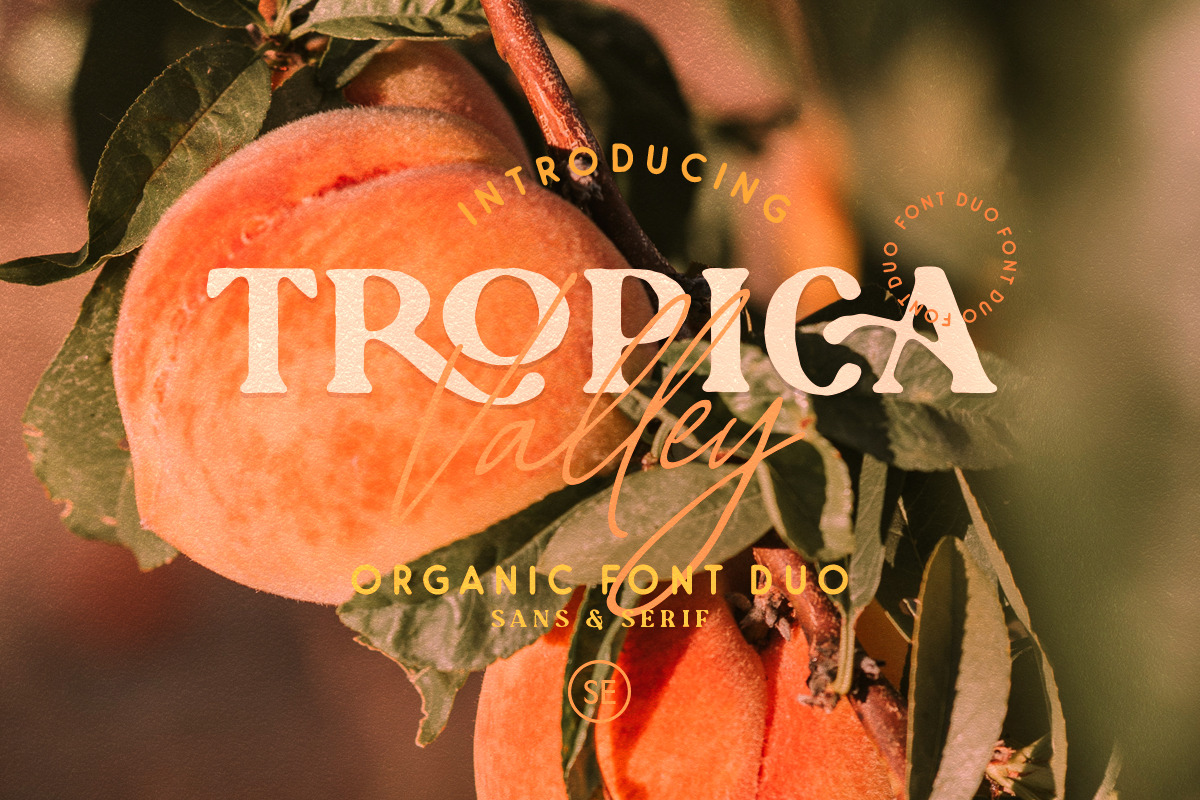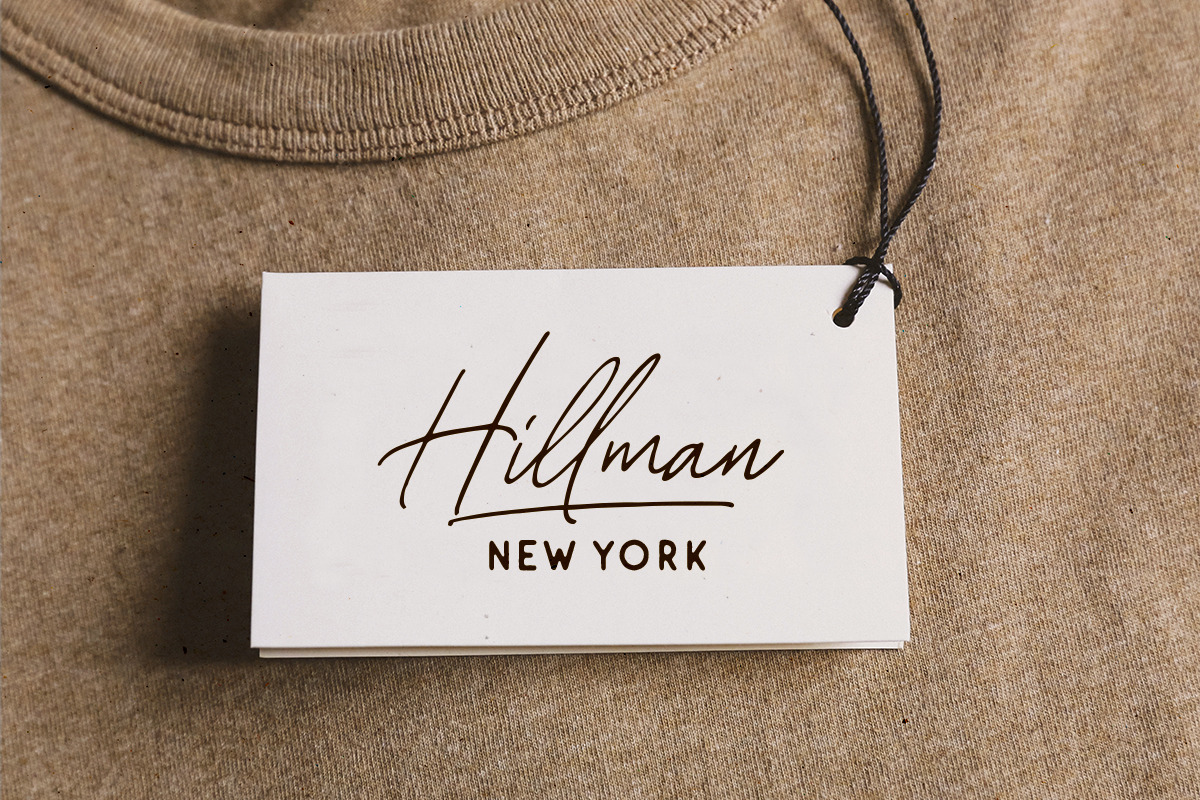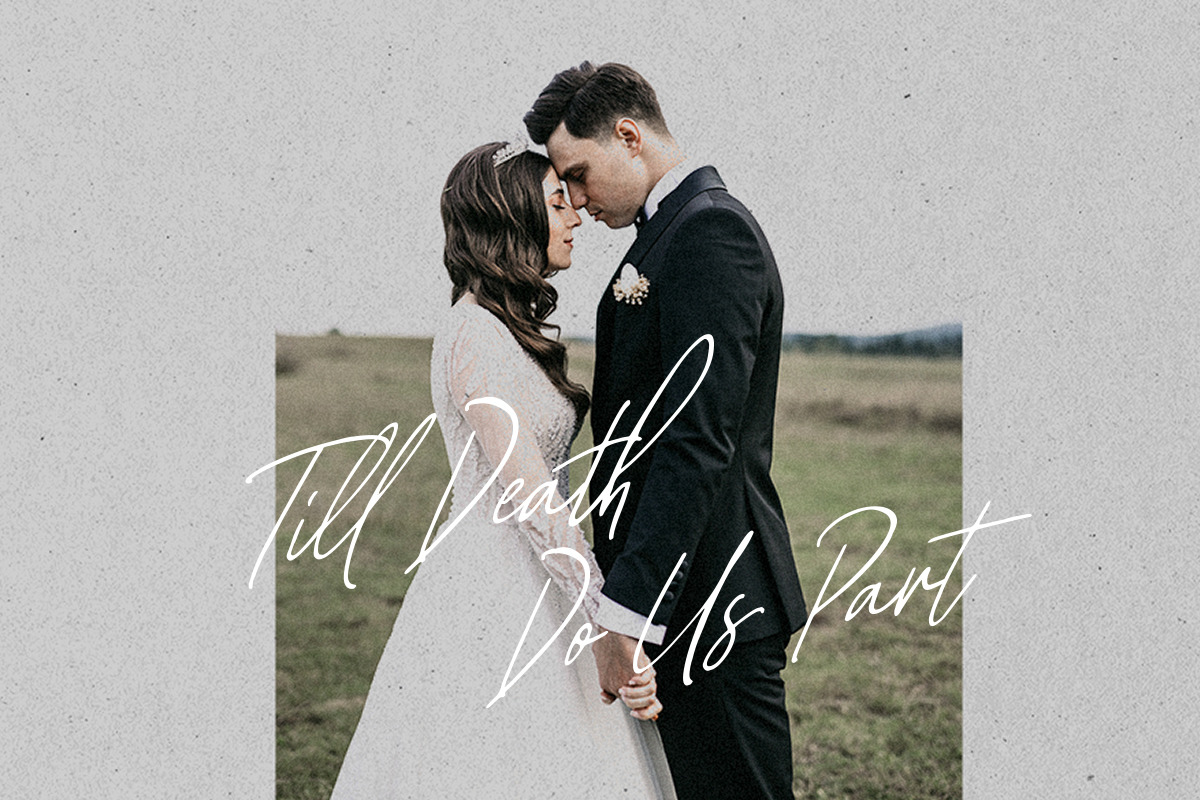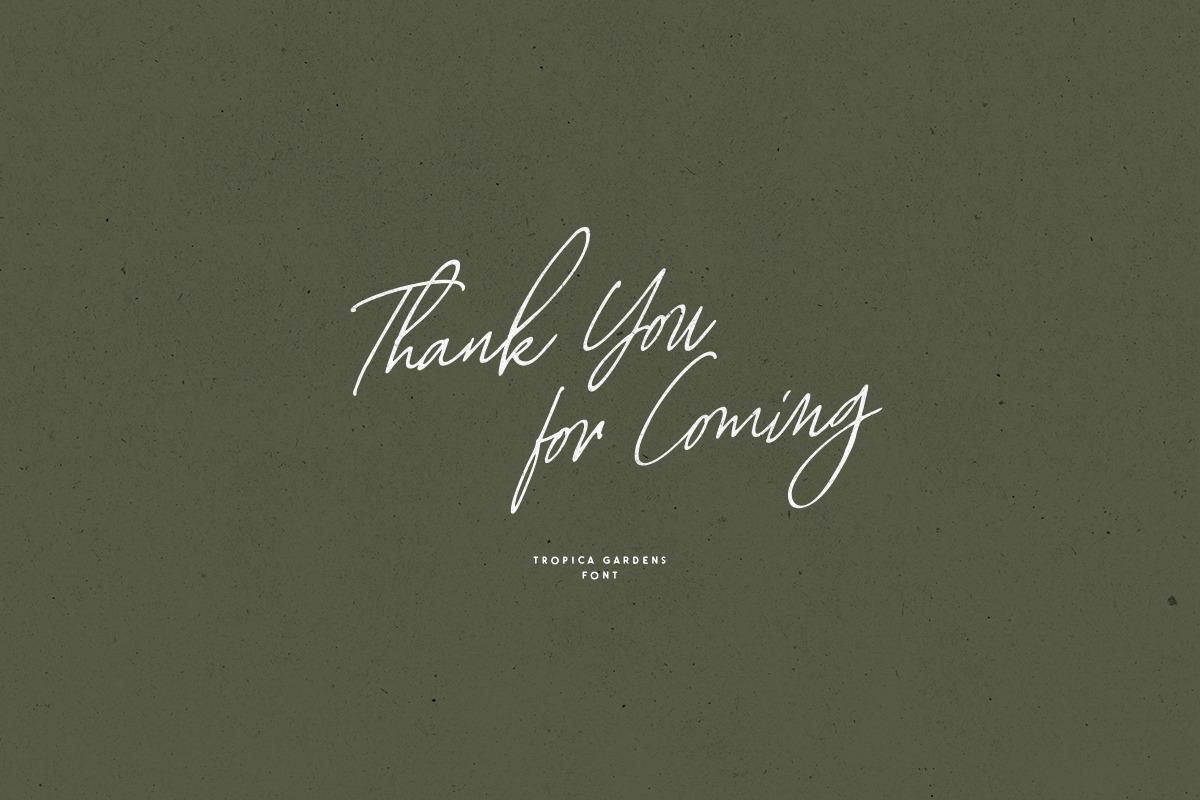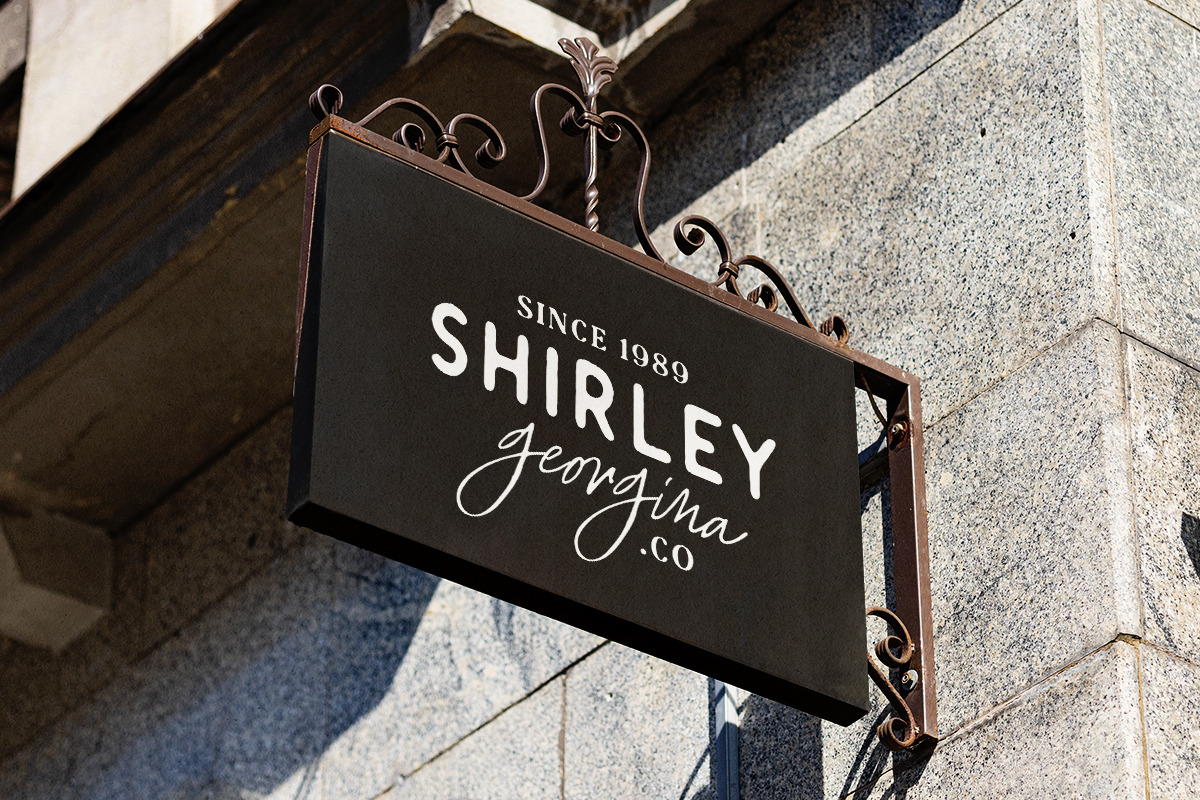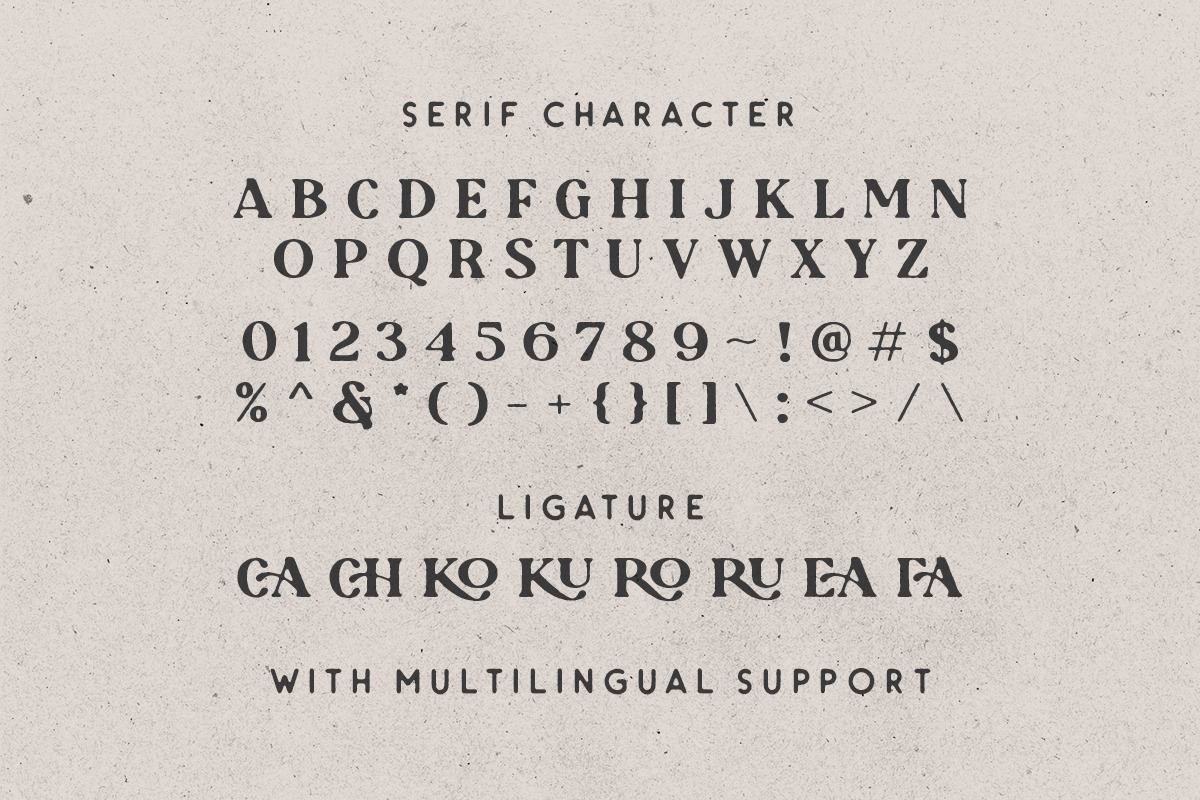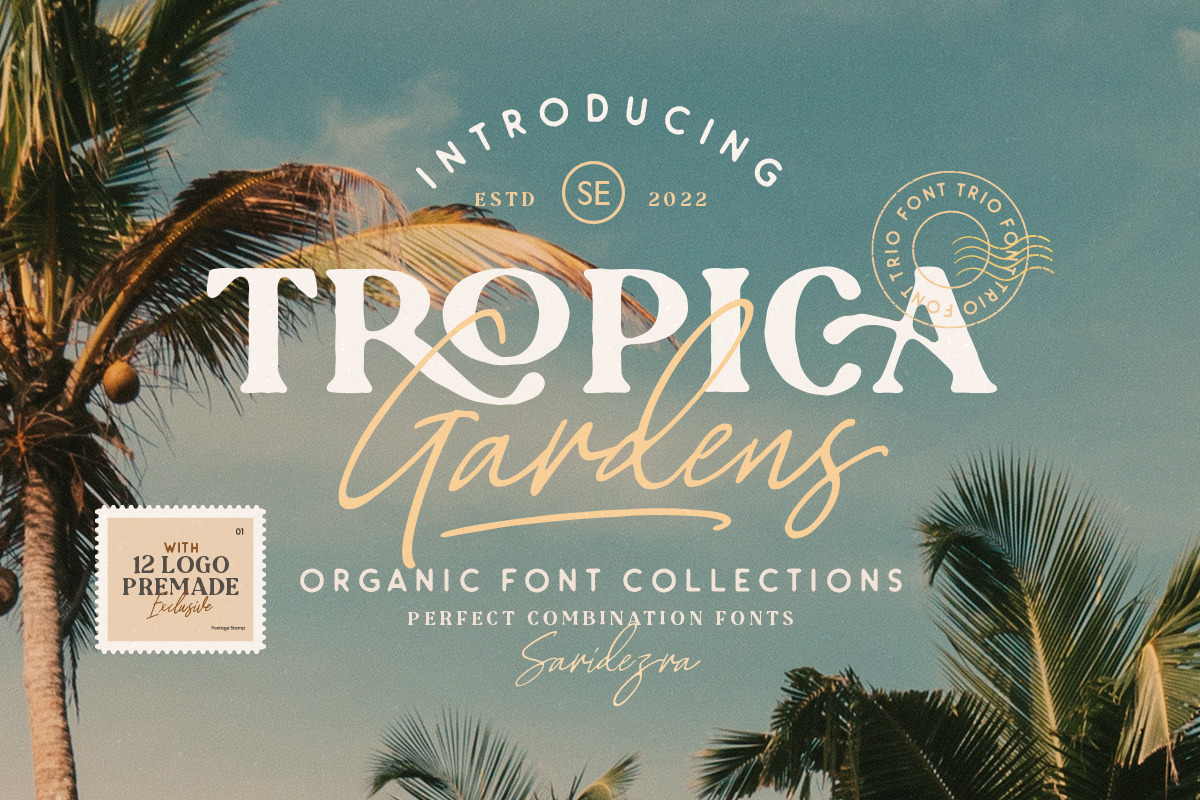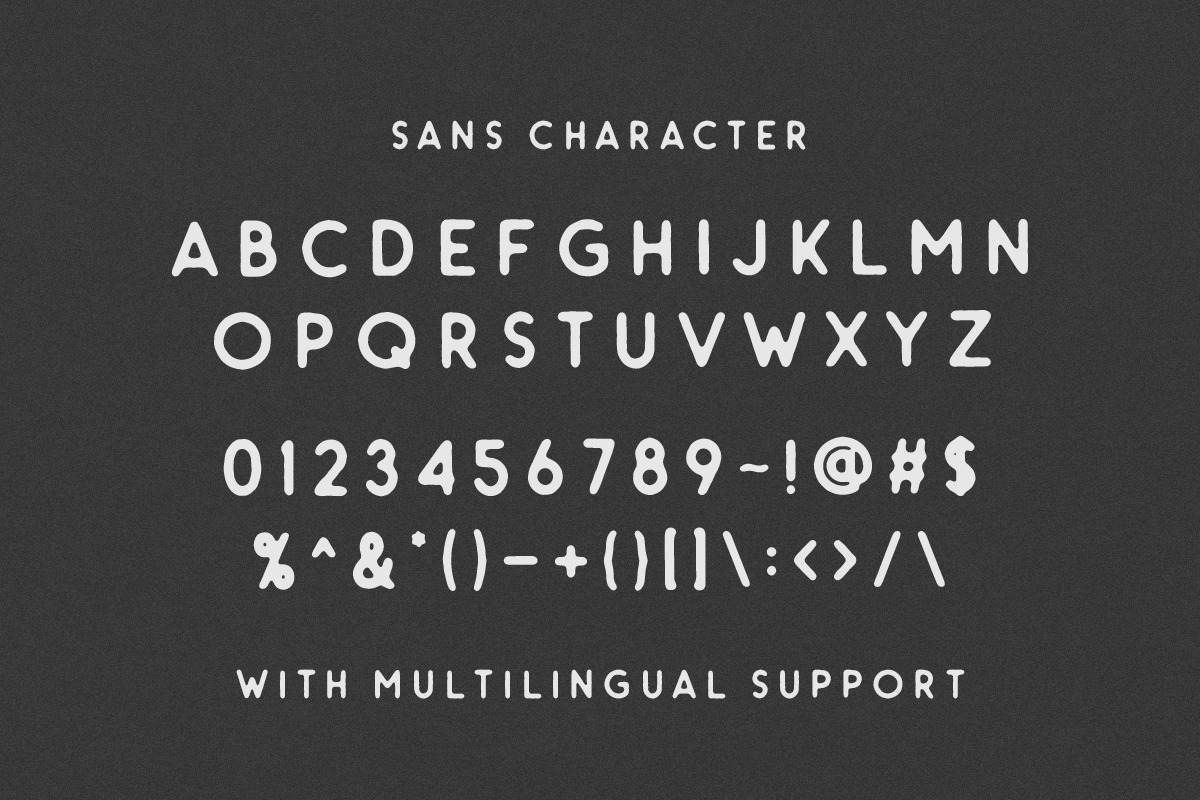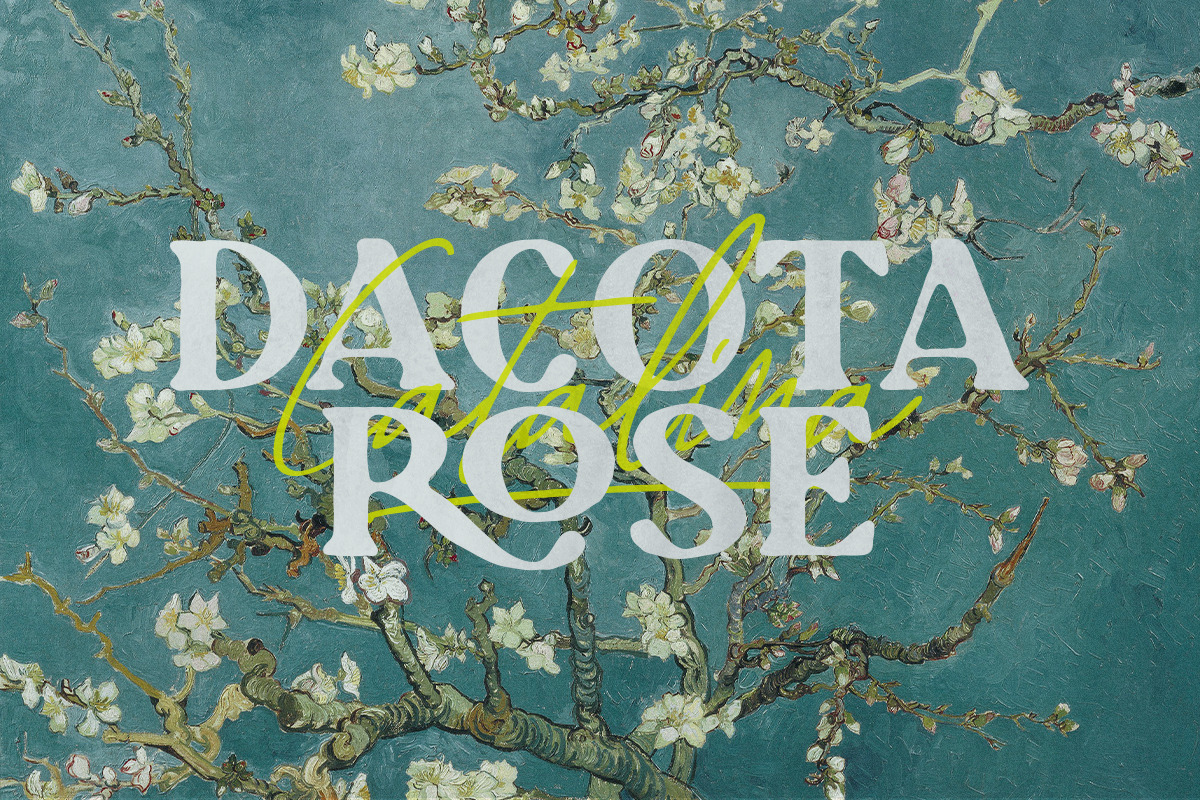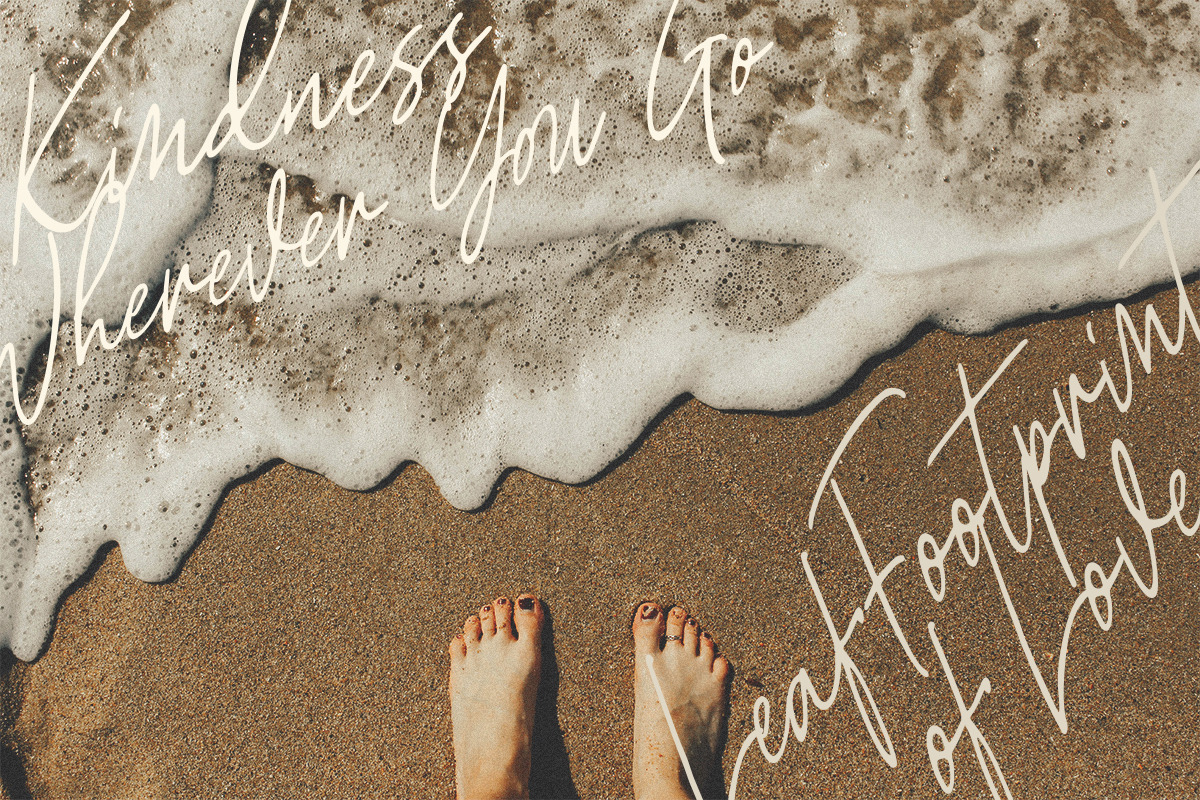
Tropica Gardens - Font Trio (+LOGOS)
Introducing, Tropica Gardens - Essential Font Trio with Bonus Editable Logo
Tropica Gardens is perfect and essential combination between three fonts including bold serif, rounded sans, and authentic signature. This font trio also support multilingual, number and symbol. You can use this font for any purpose. The best part is, you don't need to search for the pairing. It's included in this package. Also comes with bonus, 12 beautiful premade logo which will make it easier for you to make a logo! Being expert just in one step!